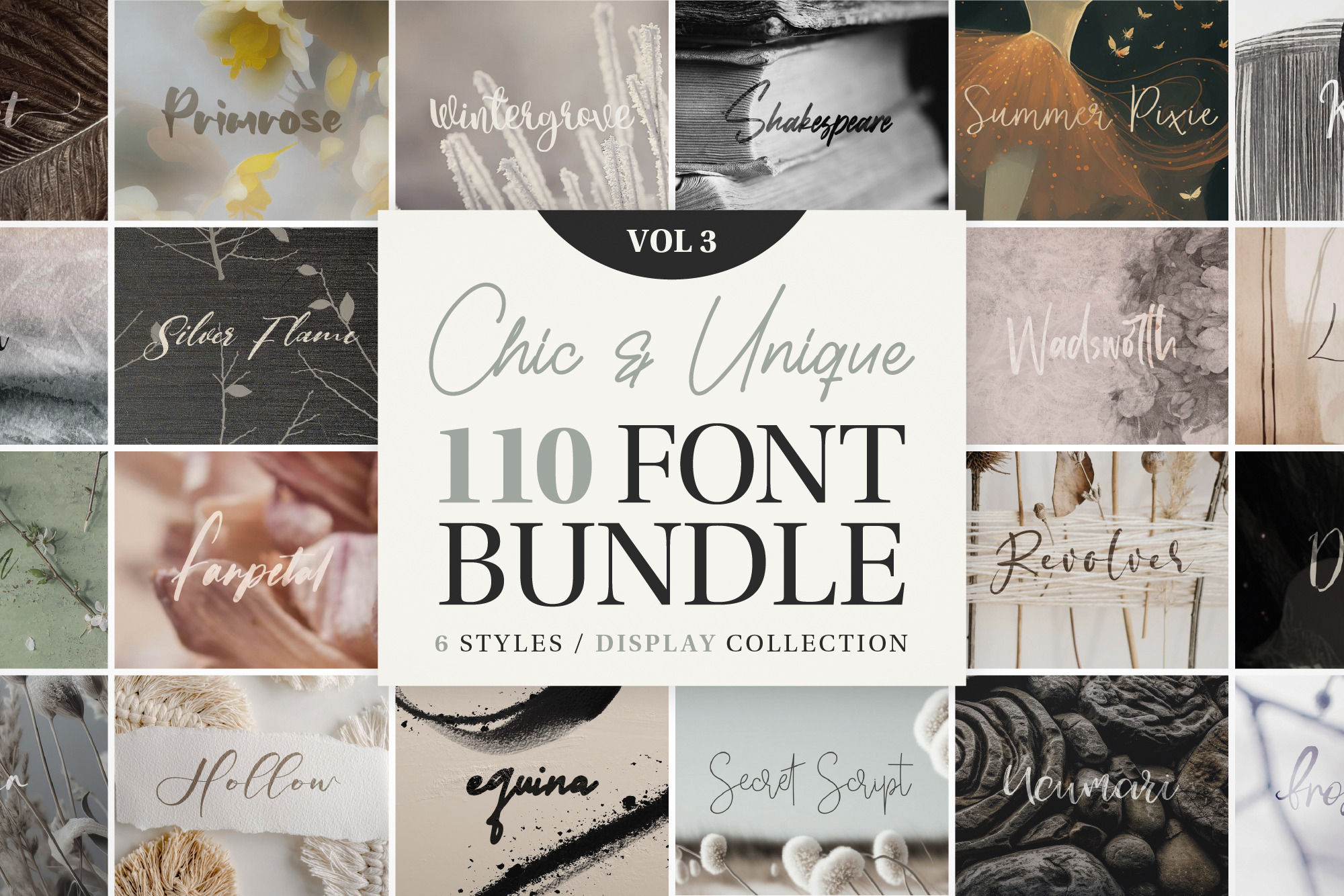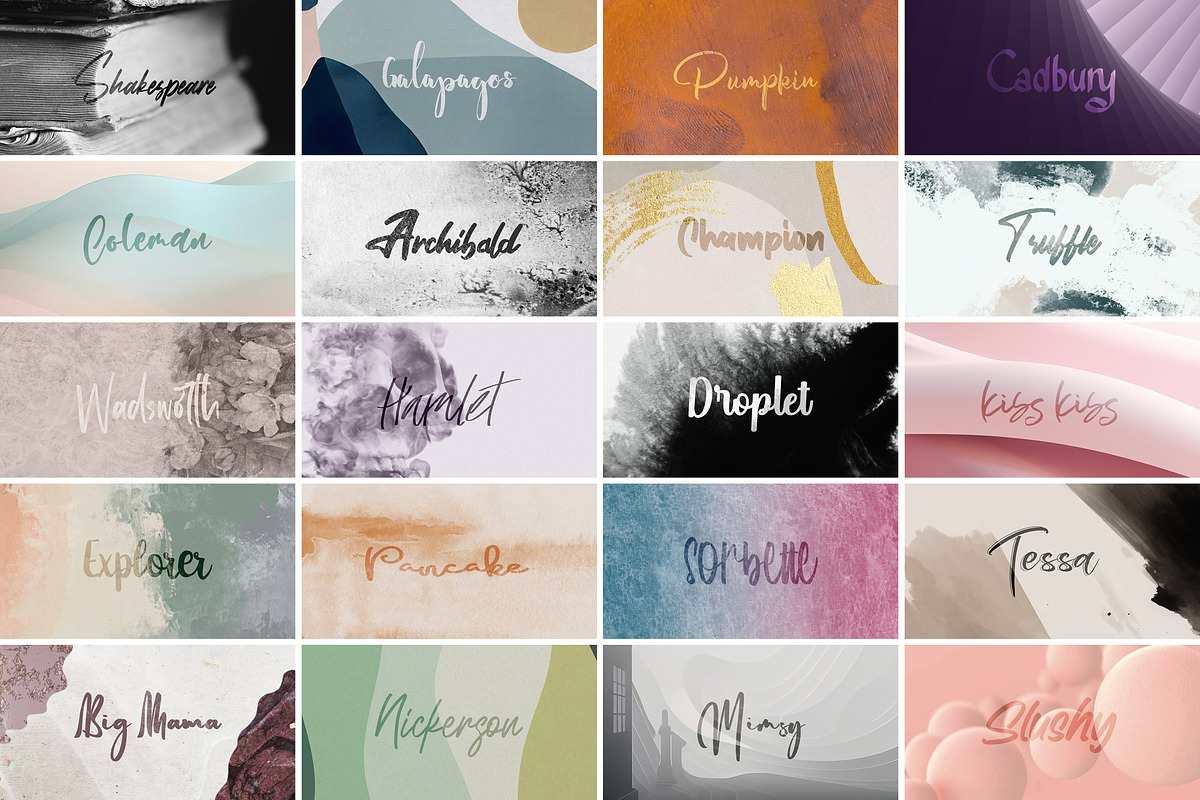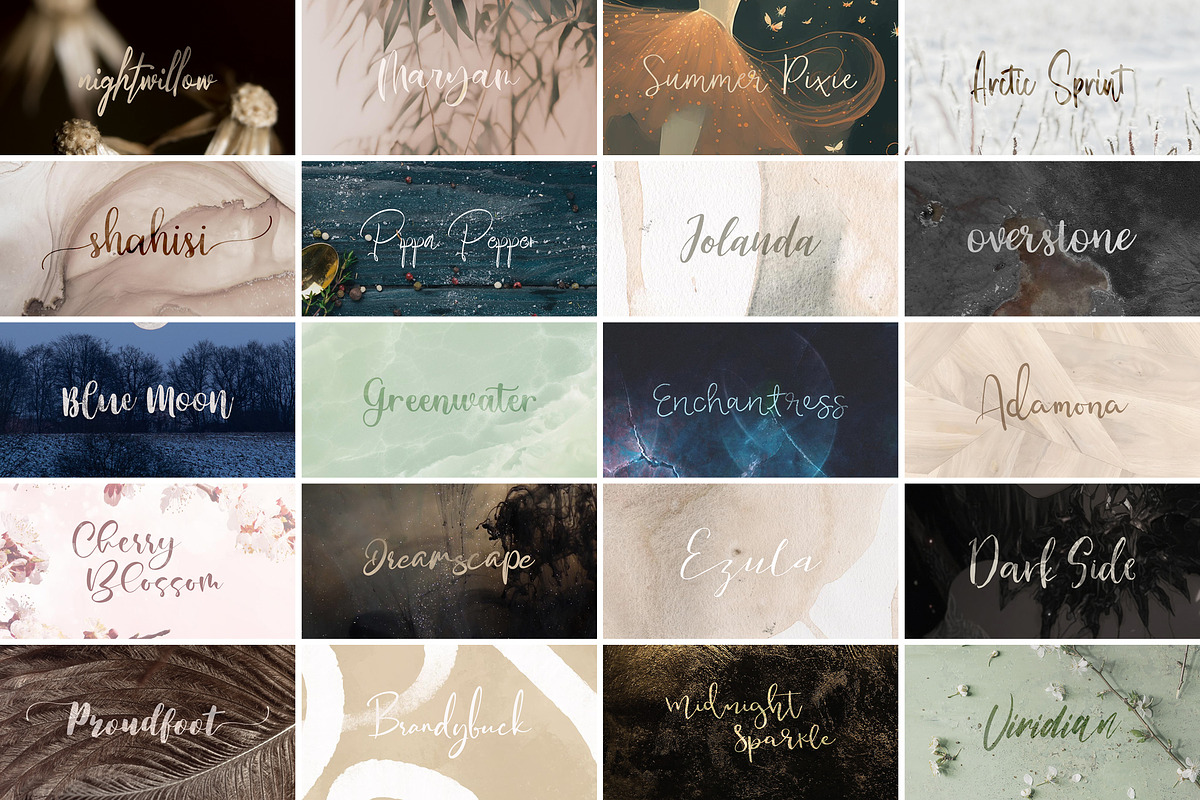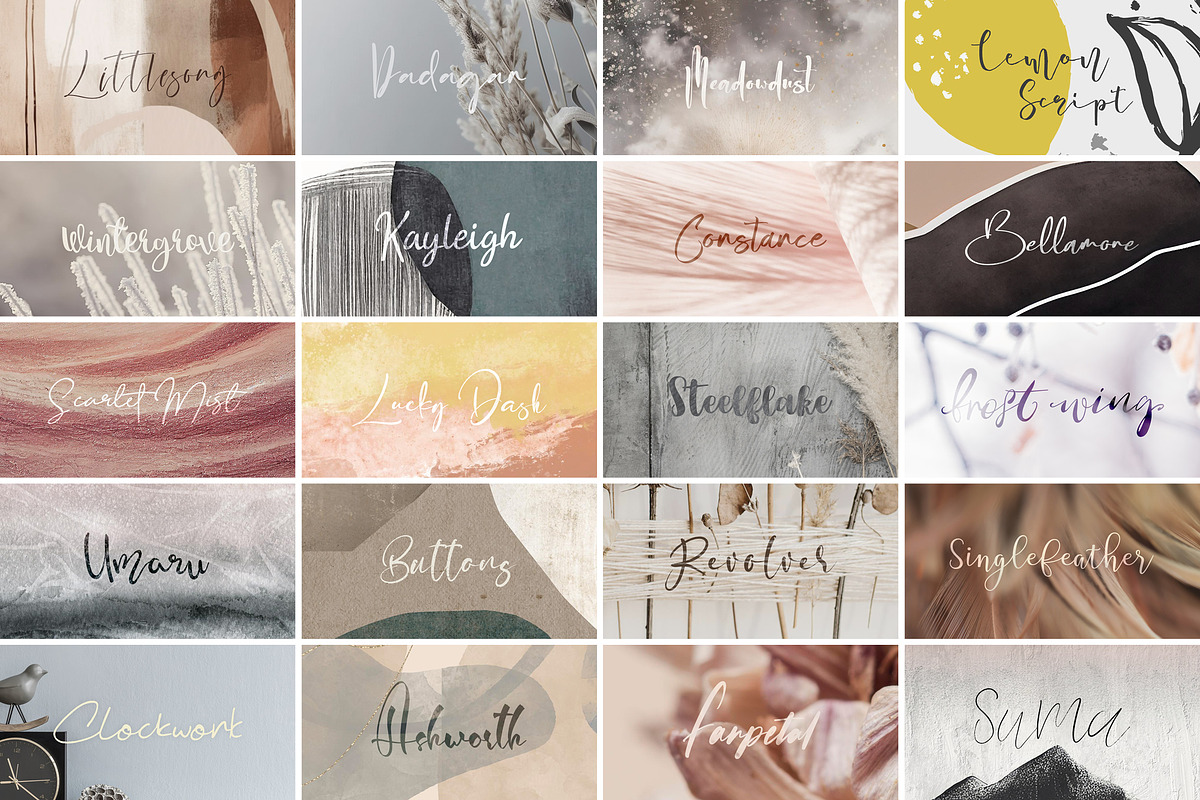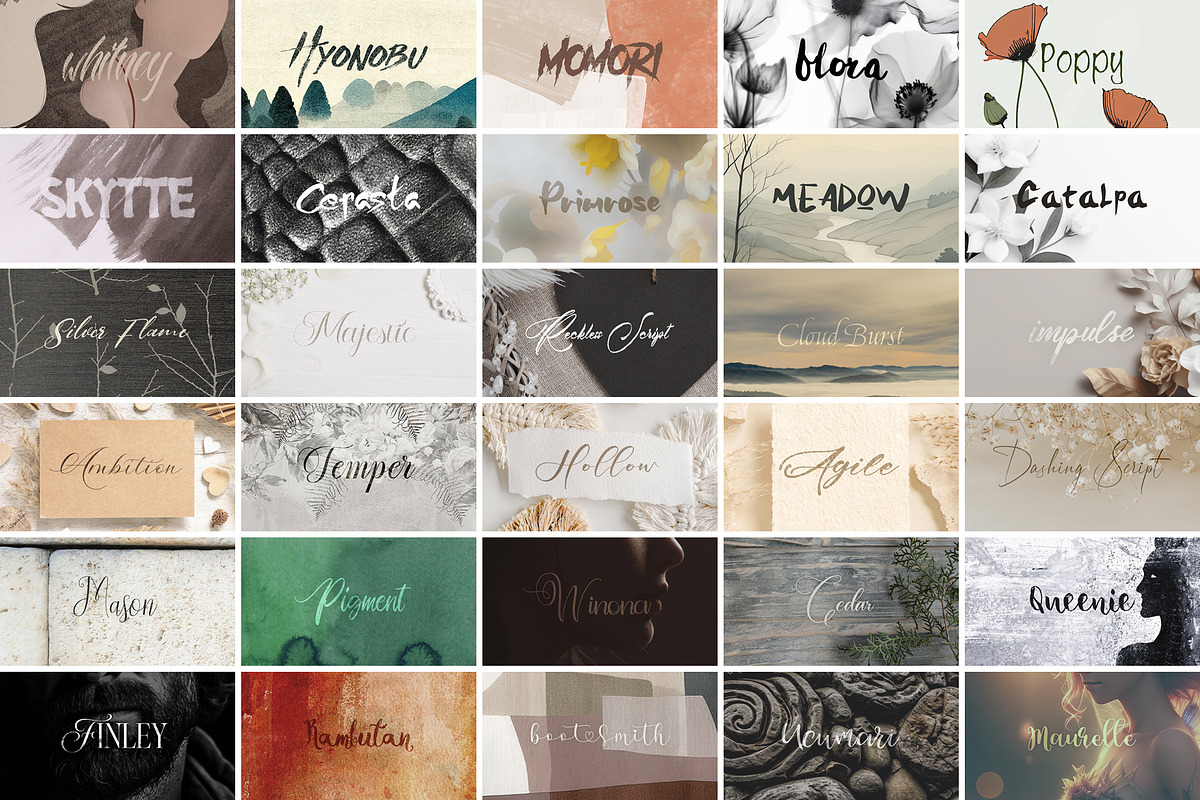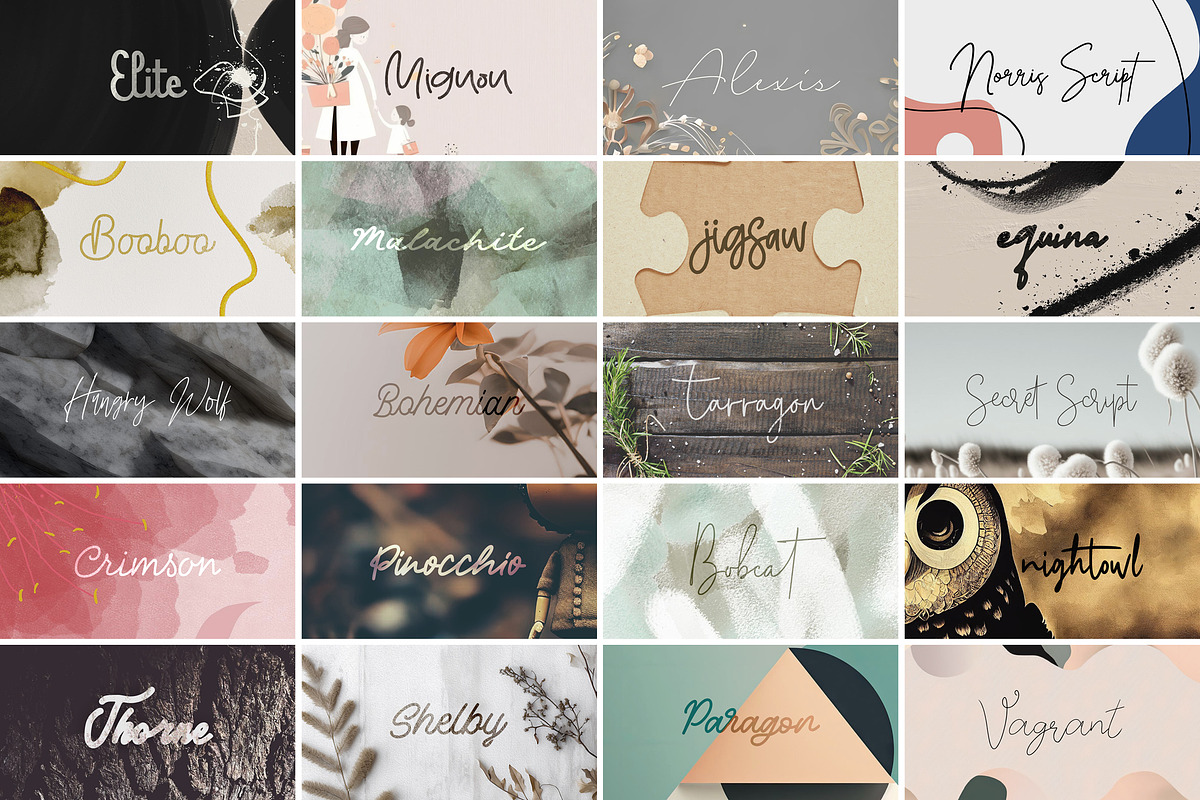
Chic and Unique Font Bundle Vol 3
This bundle of 110 fonts is excellent value, with each font meticulously designed to provide your projects with distinctive character. They are suitable for various applications such as stationery, logo design, typography quotes, and editorial graphic design.
5 styles are included in the bundle:
- 10 Brush Fonts - 10 Calligraphy Fonts
- 40 Handwritten Fonts
- 20 Marker Fonts
- 20 Monoline Fonts
- 10 Ornate Fonts